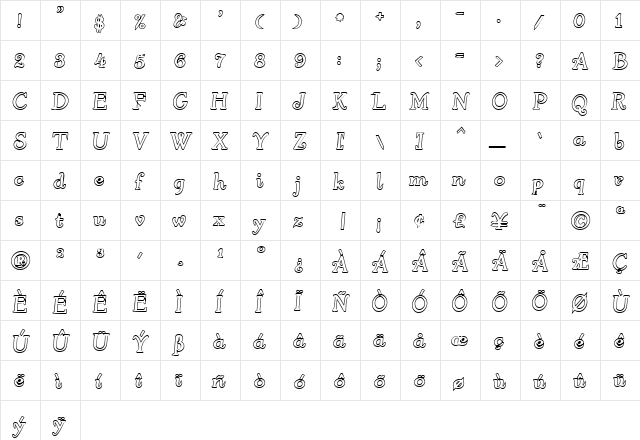
4ArmJoltScriptHollow Regular Font Preview
4ArmJoltScriptHollow Regular
Design Context for 4ArmJoltScriptHollow Typeface
4ArmJoltScriptHollow brings a calligraphic fluidity to the page — its connecting strokes and expressive curves give it an unmistakably human quality.
Font Pairing: Combine 4ArmJoltScriptHollow with a simple geometric sans for maximum contrast — the tension between flowing curves and clean structure is a classic typographic pairing.
Pro Tip: Pair 4ArmJoltScriptHollow with a clean sans-serif for supporting text. The contrast between fluid script and geometric structure creates an elegant typographic hierarchy.